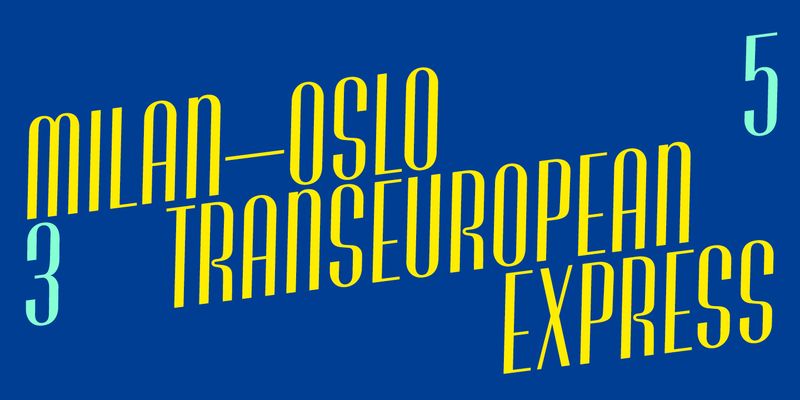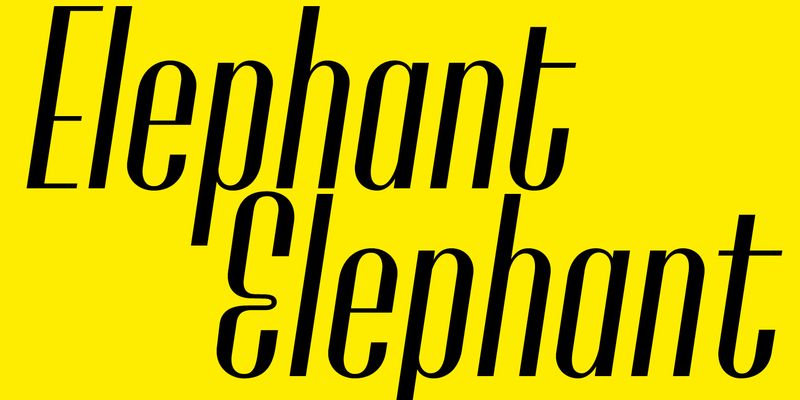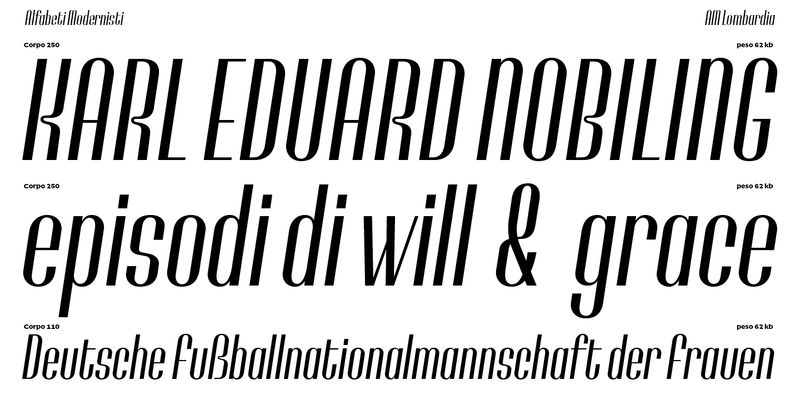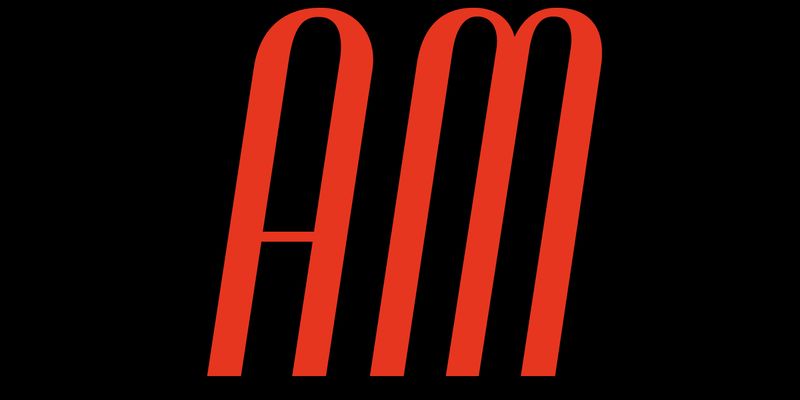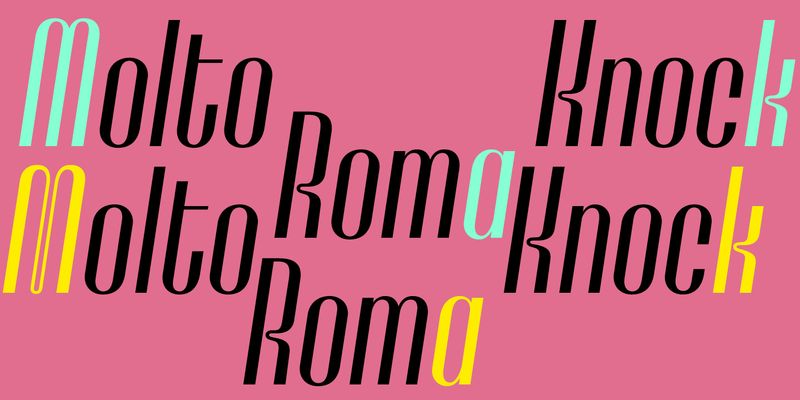
Lombardia was an all-caps condensed sanserif with a modular design, a high thick/thin contrast and a distinctive 8-degree slant. Its geometric rhythm is emphasised by the swelling at the terminals of the letters, while another distinctive feature is the small curve at the central intersection of letters such as B, K and R.
Lombardia was a metal type patented by Pierallini, Turchi & Co. in Florence in 1941. It was released in six body sizes ranging from 24 to 72 points. Although little is known about the type foundry, which was later acquired by Azzaro in Rome, the patent provides information about its designer, Egidio Bozzolo. Bozzolo was a graphic designer (he designed a cover of Campo Grafico) and a member of a group of modernist-inspired graphic designers (including Antonio Cane, Stanislao Defilippi, Ezio D’Errico and Paolo Alcide Saladin), who authored Tipo. Impostazioni tipografiche create e realizzate dal Gruppo Cinque T., a stylish essay on modern industrial graphics published in 1939.
Lombardia’s design features reflect the spirit of late 1930s Italy, with geometric letterforms recalling Nebiolo’s popular Neon, while Lombardia’s high contrast and the rounded intersection of B, K and R are reminiscent of Nebiolo’s other best seller, Fluidum.
The AM Lombardia digital revival closely mirrors the original design regarding uppercase, figures and punctuation. Curves and thicknesses were reviewed and fine-tuned – and these are standard procedures for adapting printed letters to the digital environment. ‘Since Lombardia was caps-only – say the designers, Carlotta Albiero and Luciano Perondi – we decided to add the lowercase letters that are missing in the original model following a similar process to that adopted by the Fundición Tipográfica Nacional (Madrid): in 1954 they released Ilerda, very similar to Lombardia, though darker and less slanted, and with lowercase letters. Alternates for a, k, and t were also provided, along with alternate E and M, which were part of the original typeface.
ss01 – Alternative E, M
ss02 – Alternative a, k, t